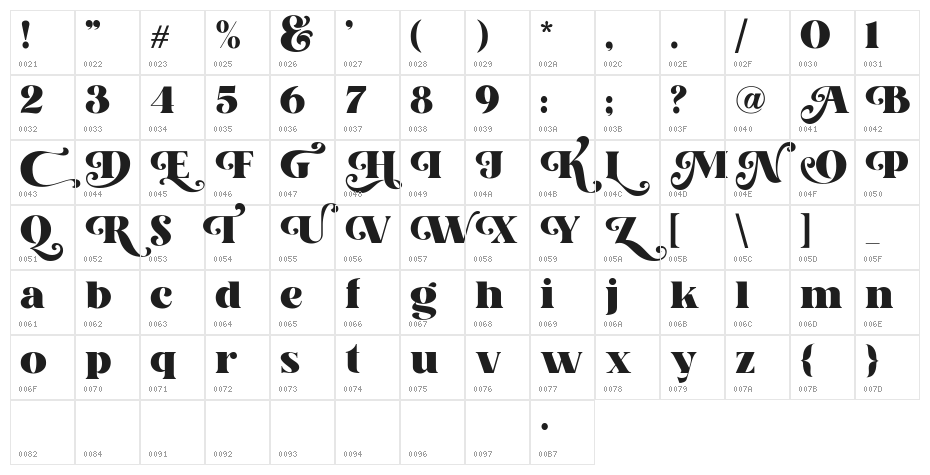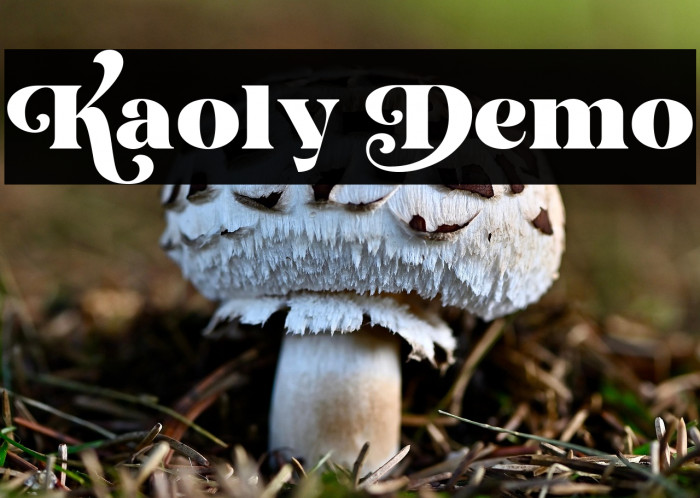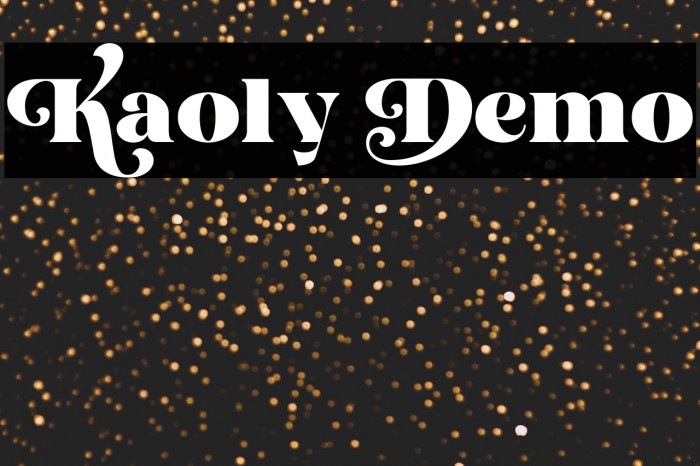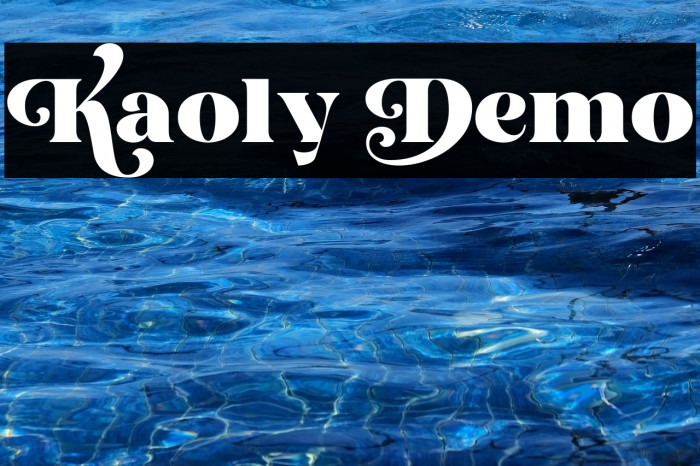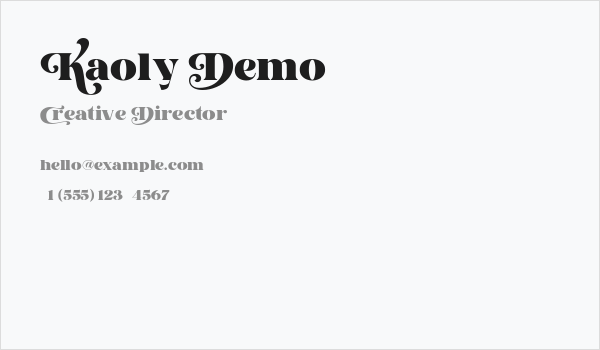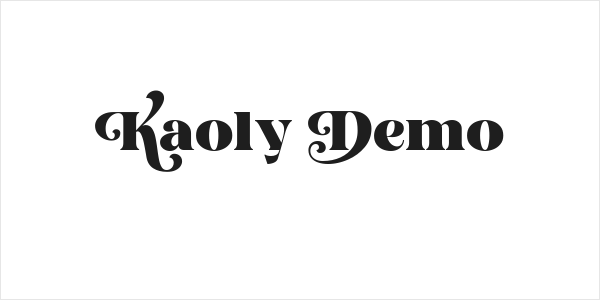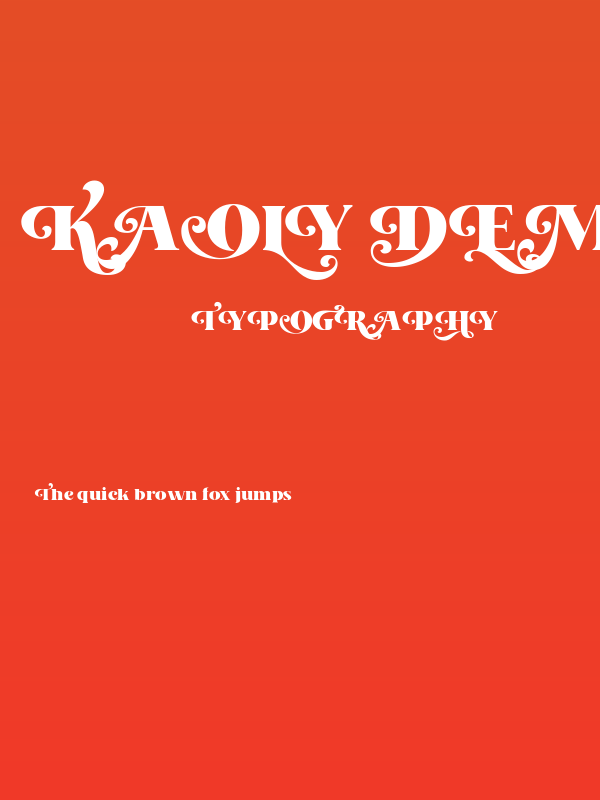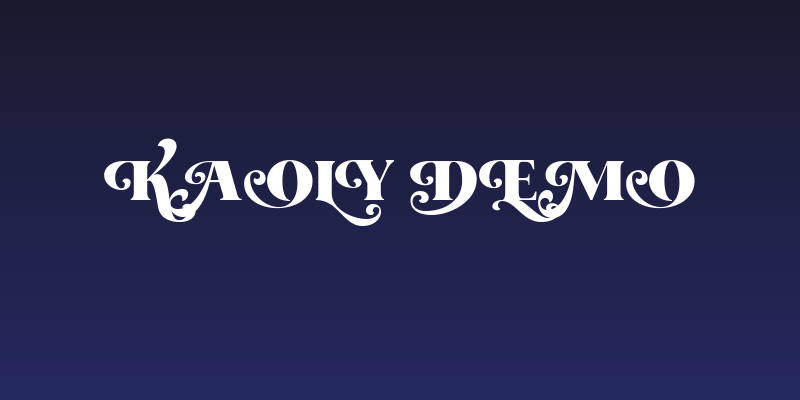
Kaoly Demo Font
Kaoly Demo Description
This font features a bold and decorative style with intricate swirls and flourishes, particularly in the uppercase letters. The lowercase letters maintain a bold presence but are more straightforward, offering a nice contrast to the ornate capitals. The numerals are equally bold, with a consistent weight that matches the alphabet. Special characters are designed with the same decorative flair, making them stand out. This font is ideal for creating eye-catching headlines or logos that require a touch of elegance and drama.
| Proposed Projects | Ideal for branding, logo design, wedding invitations, and editorial headlines. |